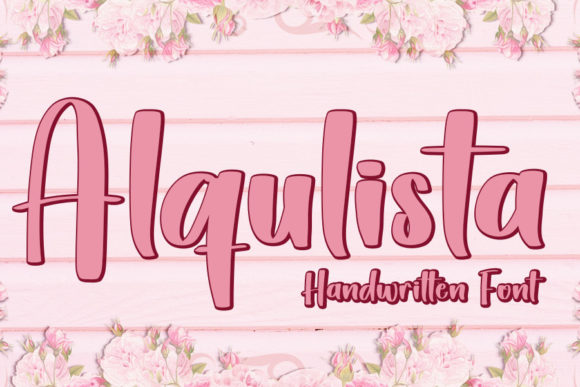
Alqulista Font: A Beautiful Script Font for Your Back-to-School Needs
Welcome to the world of Alqulista, an enchanting handwritten font that will capture your heart and inspire your creativity. This delicate script, brought to you by FreshTypeINK, is the perfect choice for anyone looking to add a touch of elegance and charm to their projects.
Whether you're creating personalized greeting cards for your loved ones, designing eye-catching headlines for your website, or crafting unforgettable logos for your brand, Alqulista has got you covered. Its wide range of applications makes it a must-have for any designer's toolkit.
But what sets Alqulista apart from other fonts? It's all in the details. Each letter has been carefully crafted with a human touch, giving it a natural and authentic feel. The flowing strokes and delicate curves add a touch of playfulness and movement to your designs, making them stand out from the crowd.
So, why choose Alqulista? Because it's:
- Enchanting and handwritten, adding a touch of magic to your projects
- Versatile and adaptable, suitable for a wide range of applications
- Perfect for back-to-school projects, adding a touch of style to your notes, assignments, and presentations
- Inspiring and creative, sparking your imagination and helping you create truly unique designs